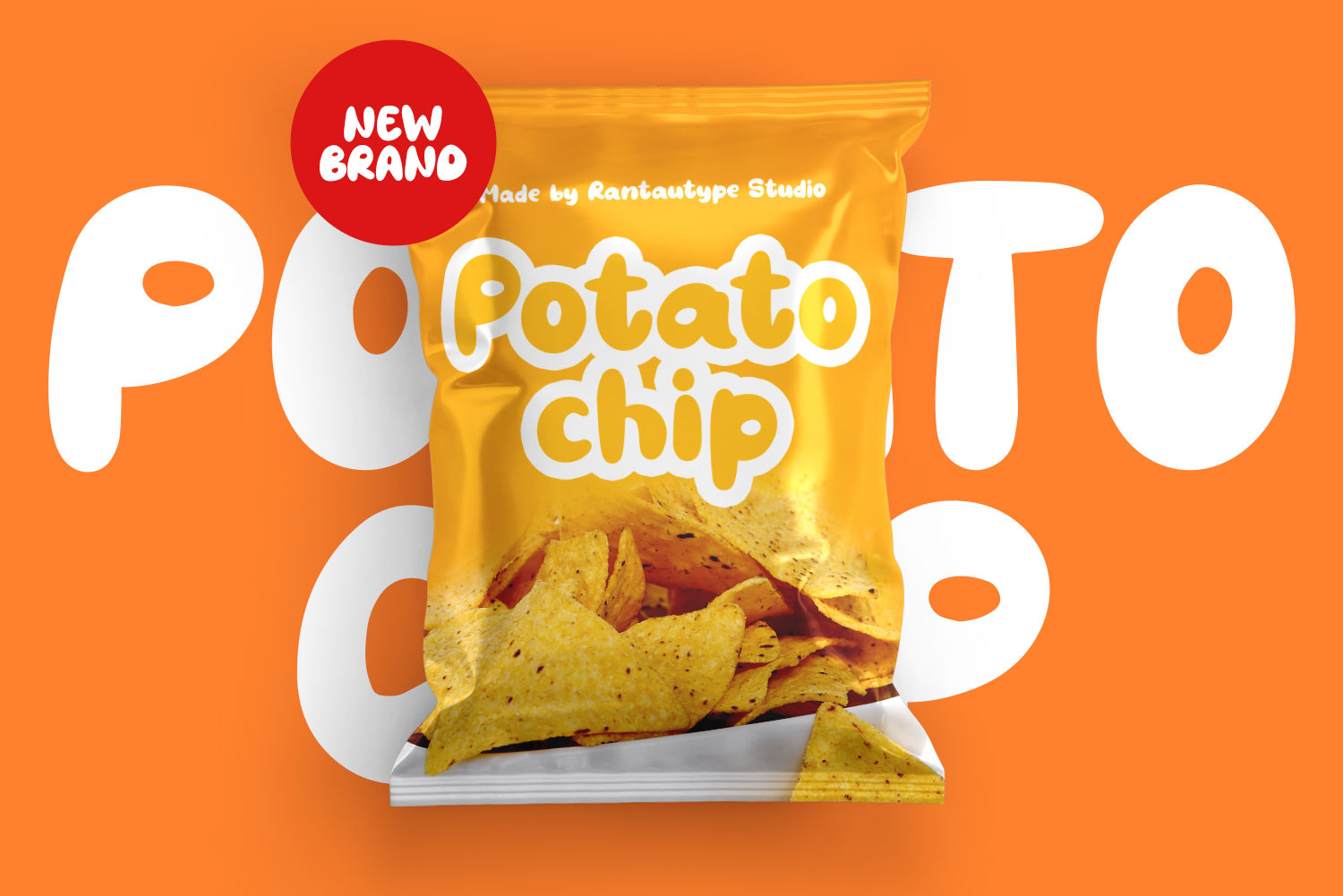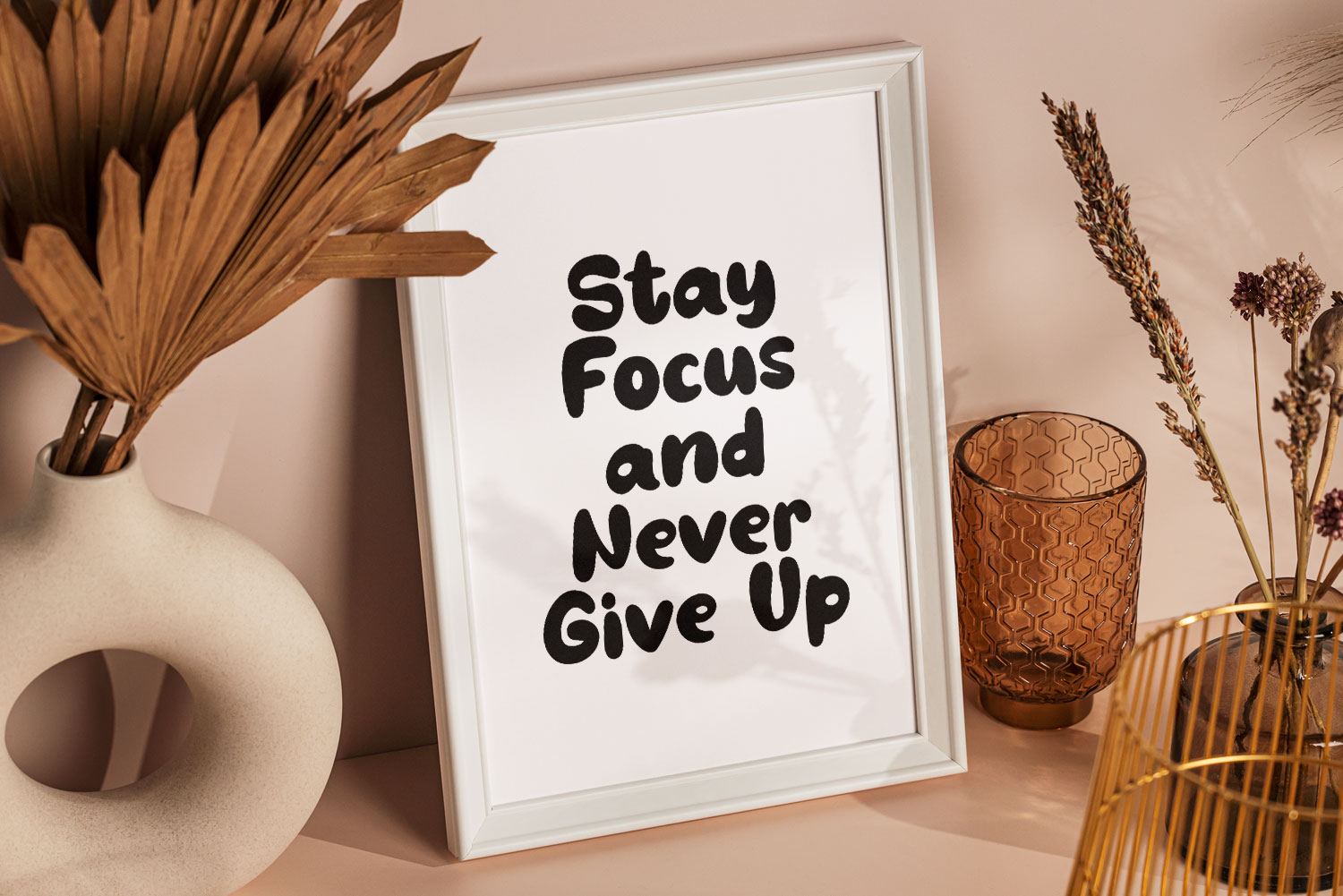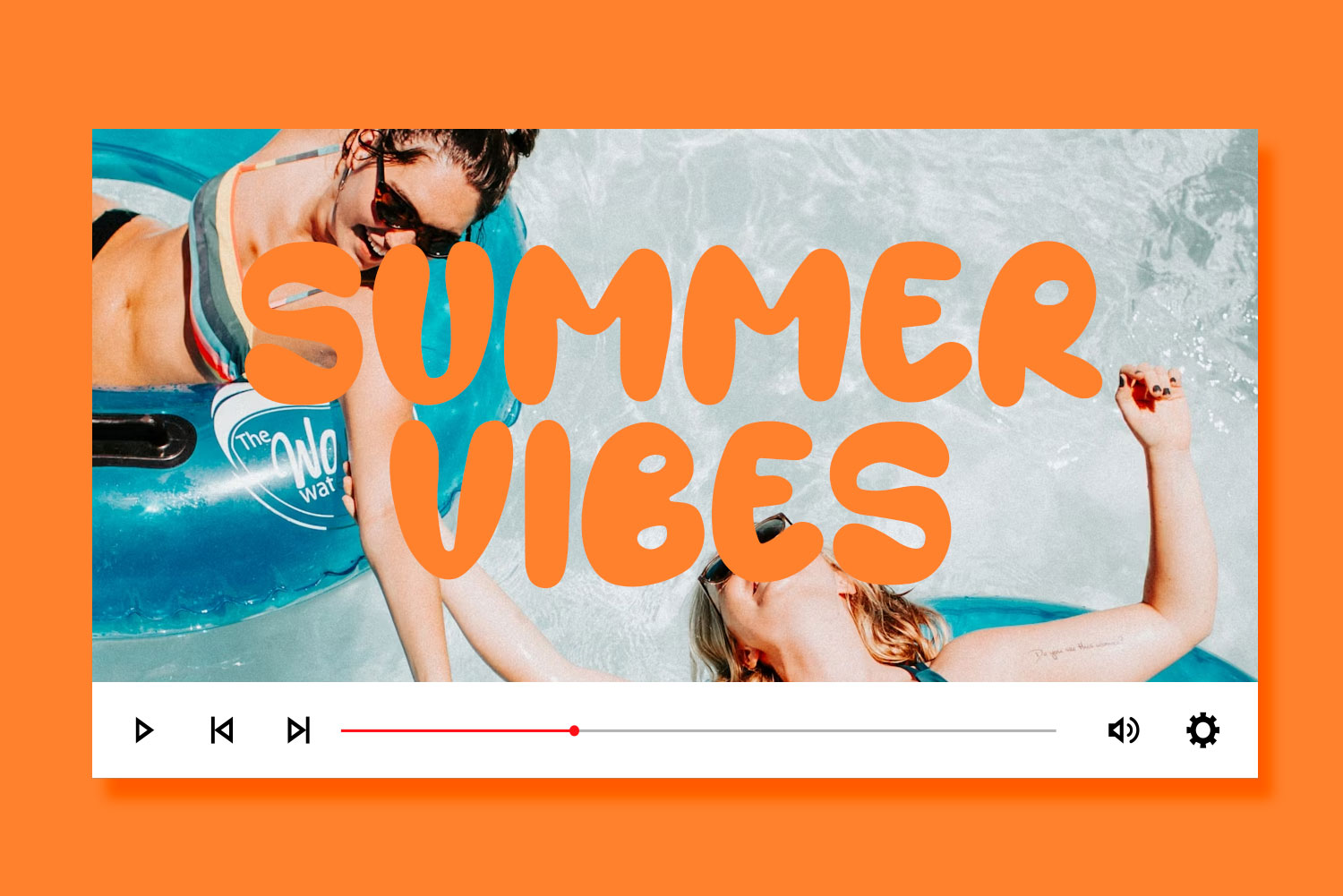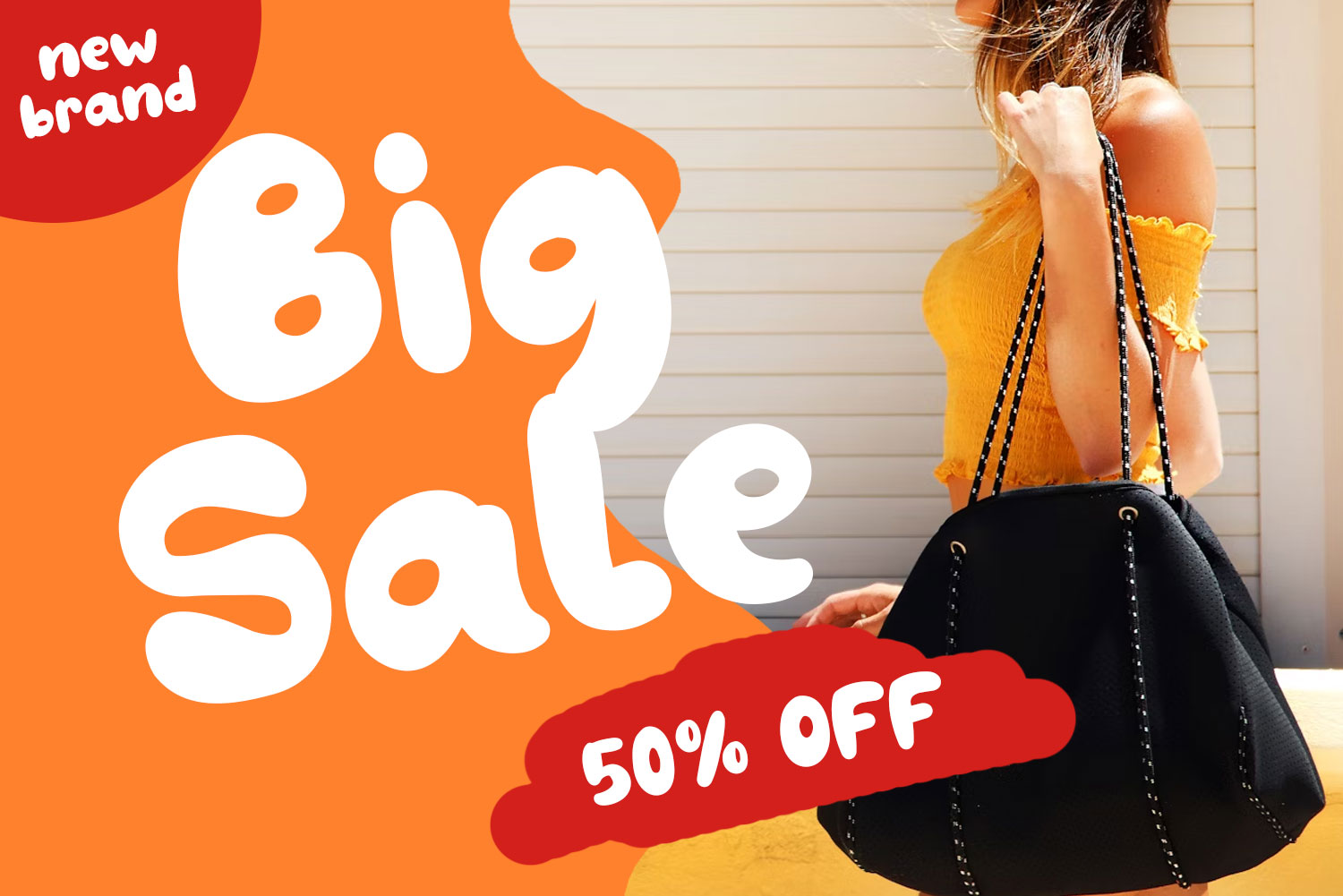
Snoper Display Font
Snoper is display handwriten font with retro and playful vibes. Come with alternate, ligature and support multilangual character.
Snoper is perfectly choice for any creative endeavor, such as logos, title, watermark on photography, cover, branding, display and magazine, wedding event, corporate brand, quotes, album cover, business card, business project and many other design project with playful taste.